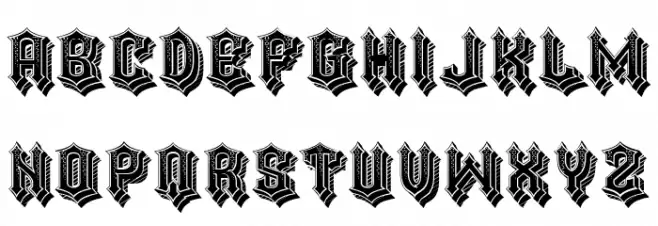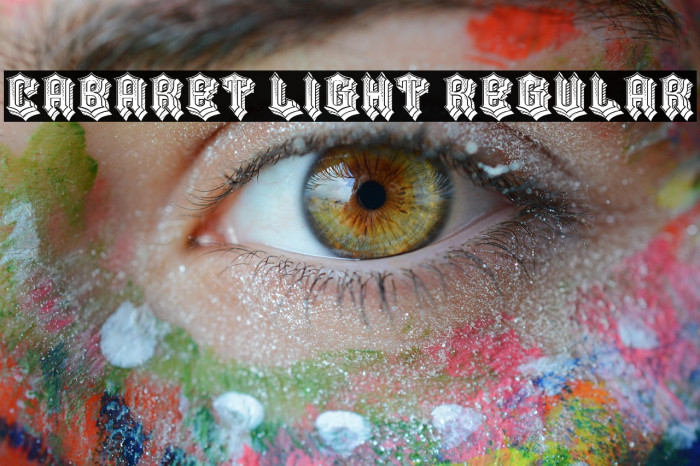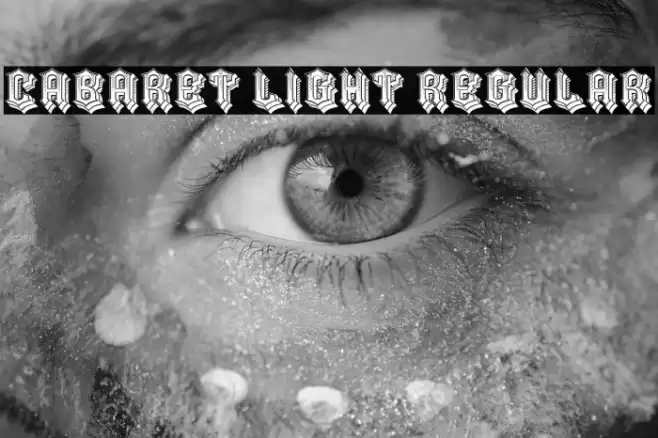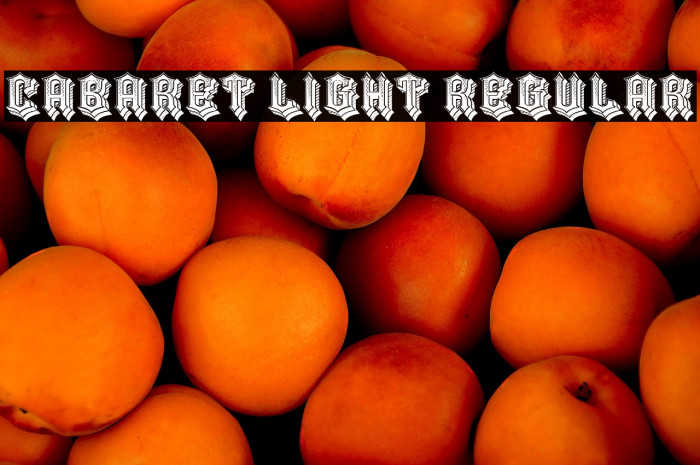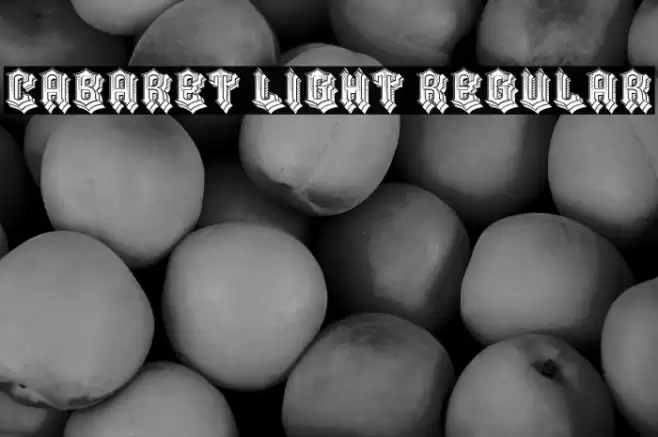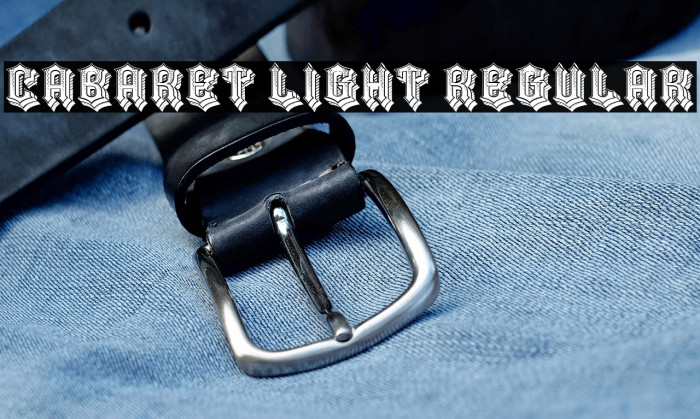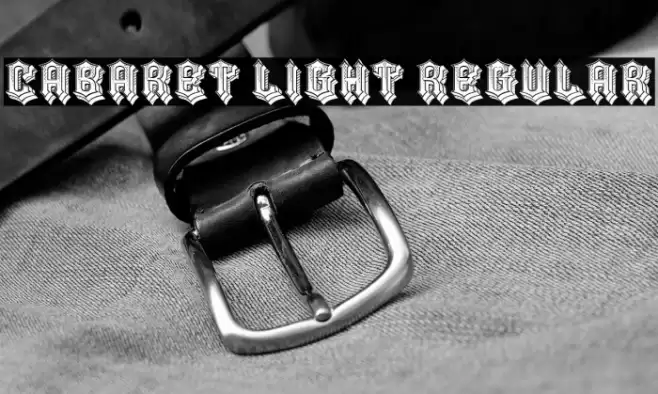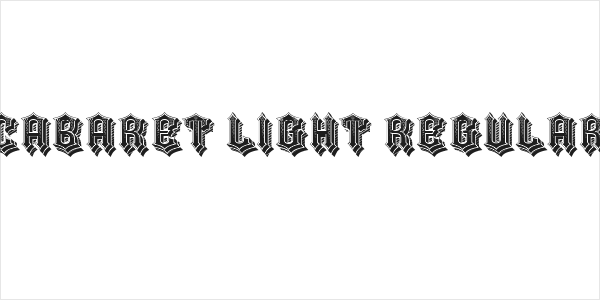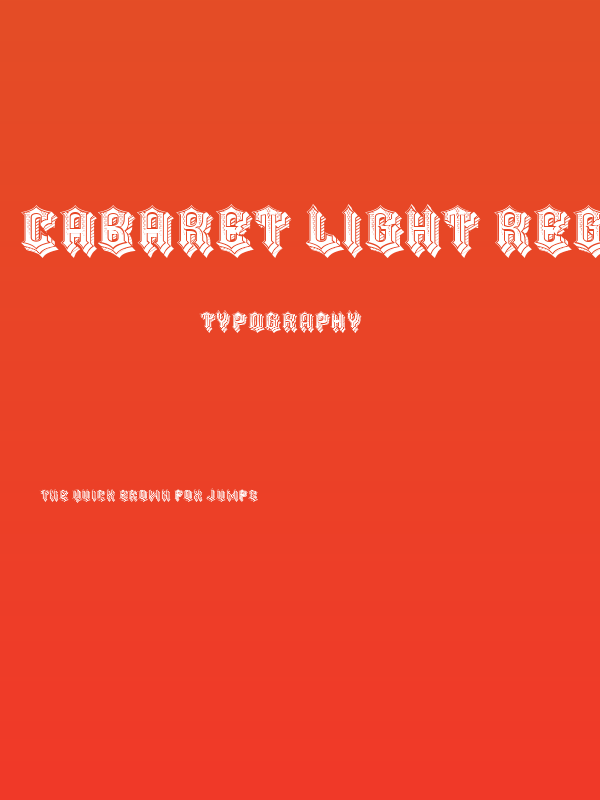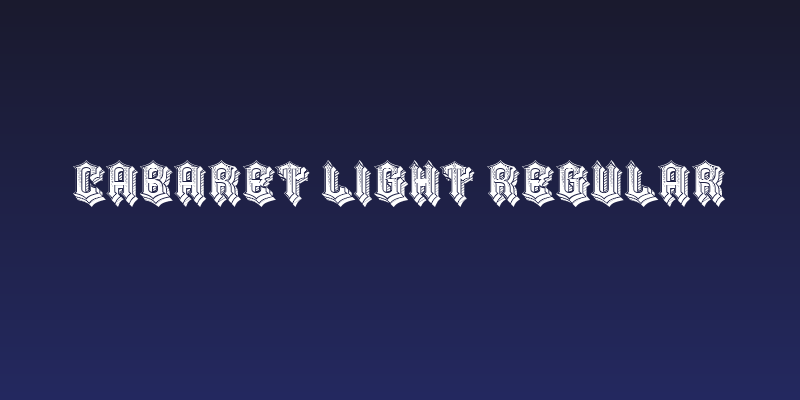
Cabaret Light Regular Font
Cabaret Light Regular Description
This font features a bold, intricate design with a strong emphasis on decorative elements. The characters are highly stylized, with ornate details that give them a distinct, gothic appearance. The strokes are thick and consistent, providing a sense of strength and stability. Each letter is adorned with unique embellishments, creating a visually striking effect. The overall design is reminiscent of traditional blackletter styles, yet it incorporates modern elements that make it suitable for contemporary use. The font's elaborate nature makes it ideal for projects that require a dramatic and eye-catching typeface.
| Proposed Projects | Ideal for posters, album covers, branding, and any project needing a dramatic, eye-catching typeface. |